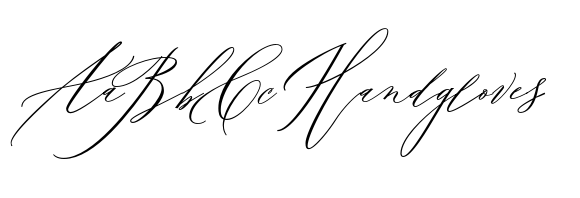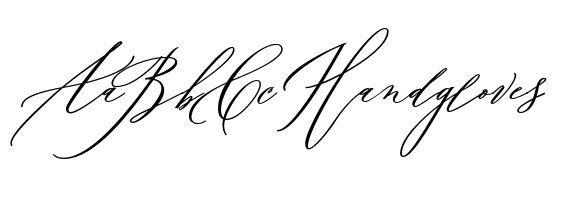
Outstanding Victoria
von BlessedPrint
Die Schriftfamilie Outstanding Victoria wurde von Dmitrii Mikitenko, Sabina Aliyarova entworfen und von BlessedPrint veröffentlicht. Outstanding Victoria enthält 6 Stile und Familienpaketoptionen.
Despite the fact that Victoria reflects the already established image of modern calligraphy, this font is quite unique due to its elegance. Each capital letter comes in several versions. Lowercase letters have up to 20 styles. Special attention was paid to the endings with applied swashes. It works very easy, type any number from 0 (a0, a1, a2…) after any letter and evaluate the result. For example: Vi2c0t4oria7. Experiment right now! This script was designed for different purposes, especially for wedding events, logos, etc. It includes more than 1100 glyphs with various swashes, flourishes, supports multilingual characters, three weight, 10 ampersands. Short and long swashes are available on the fly if you type { } [ ] It is connecting perfectly to any letter. Watch video.
Designer: Dmitrii Mikitenko, Sabina Aliyarova